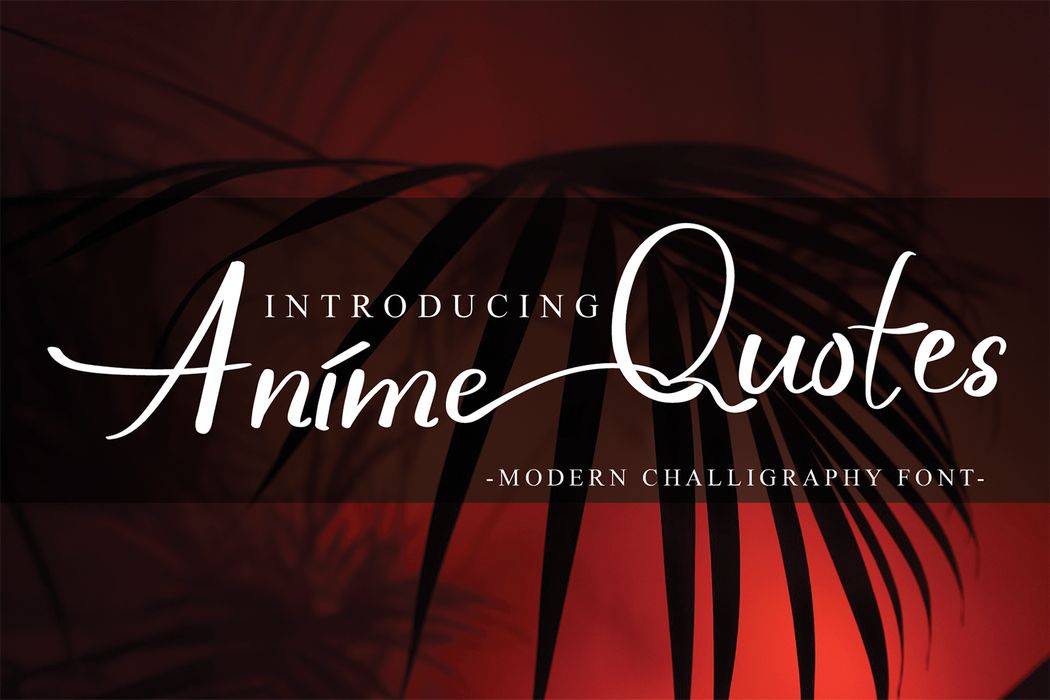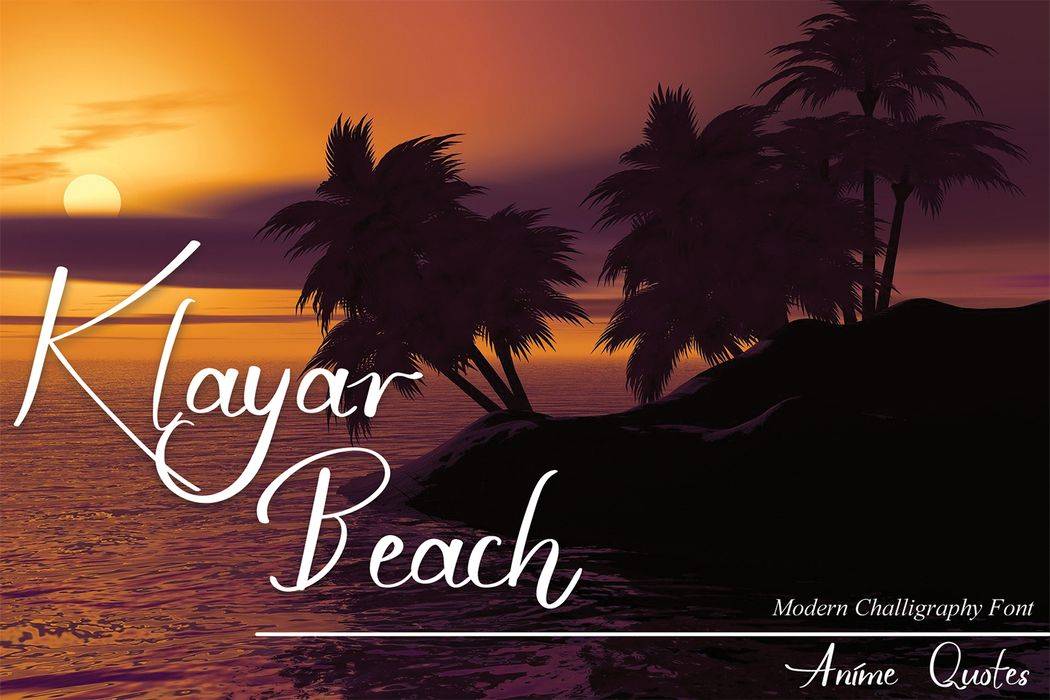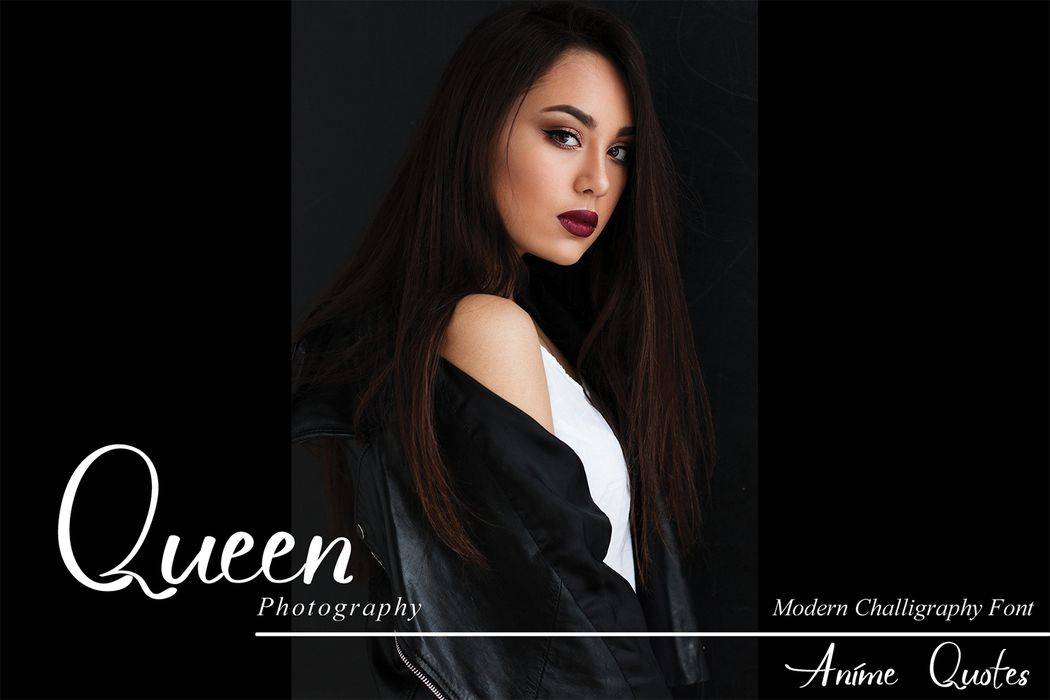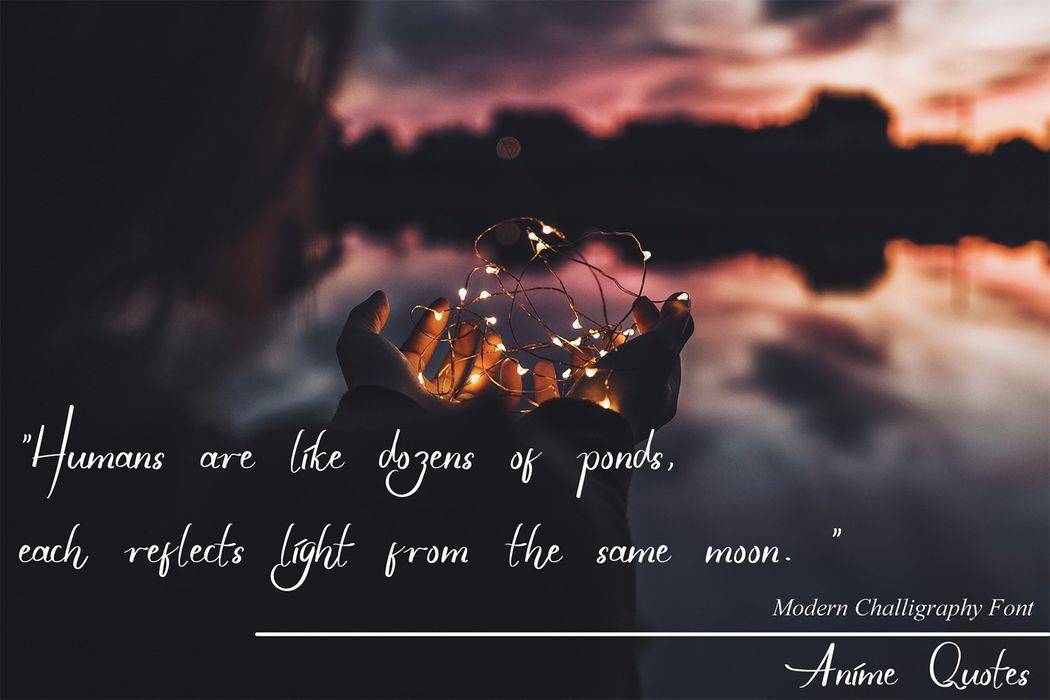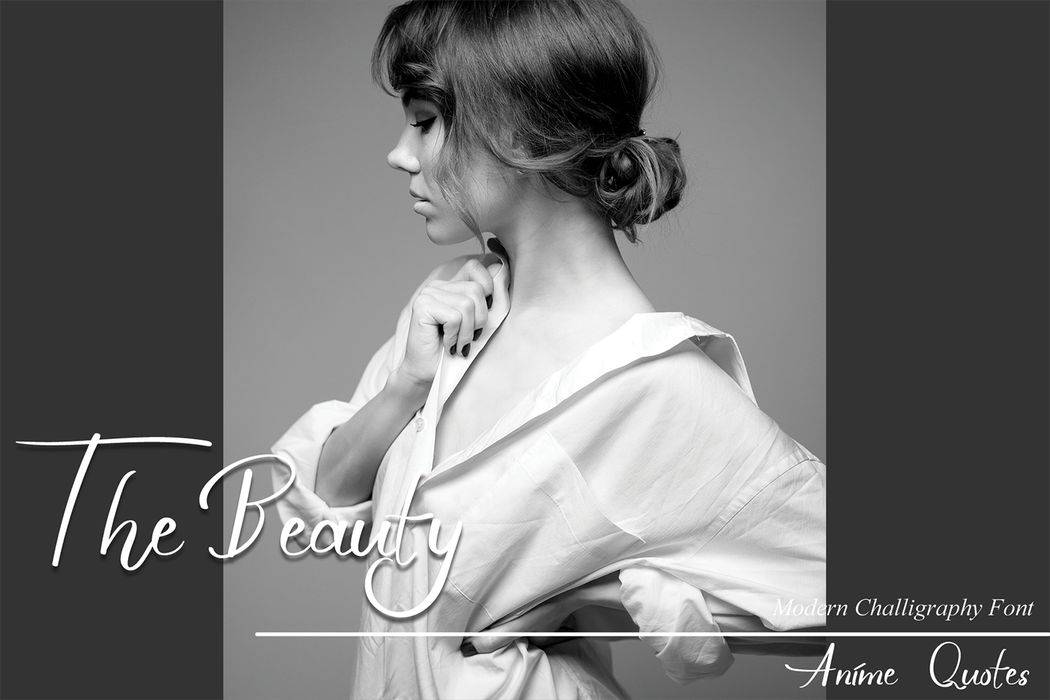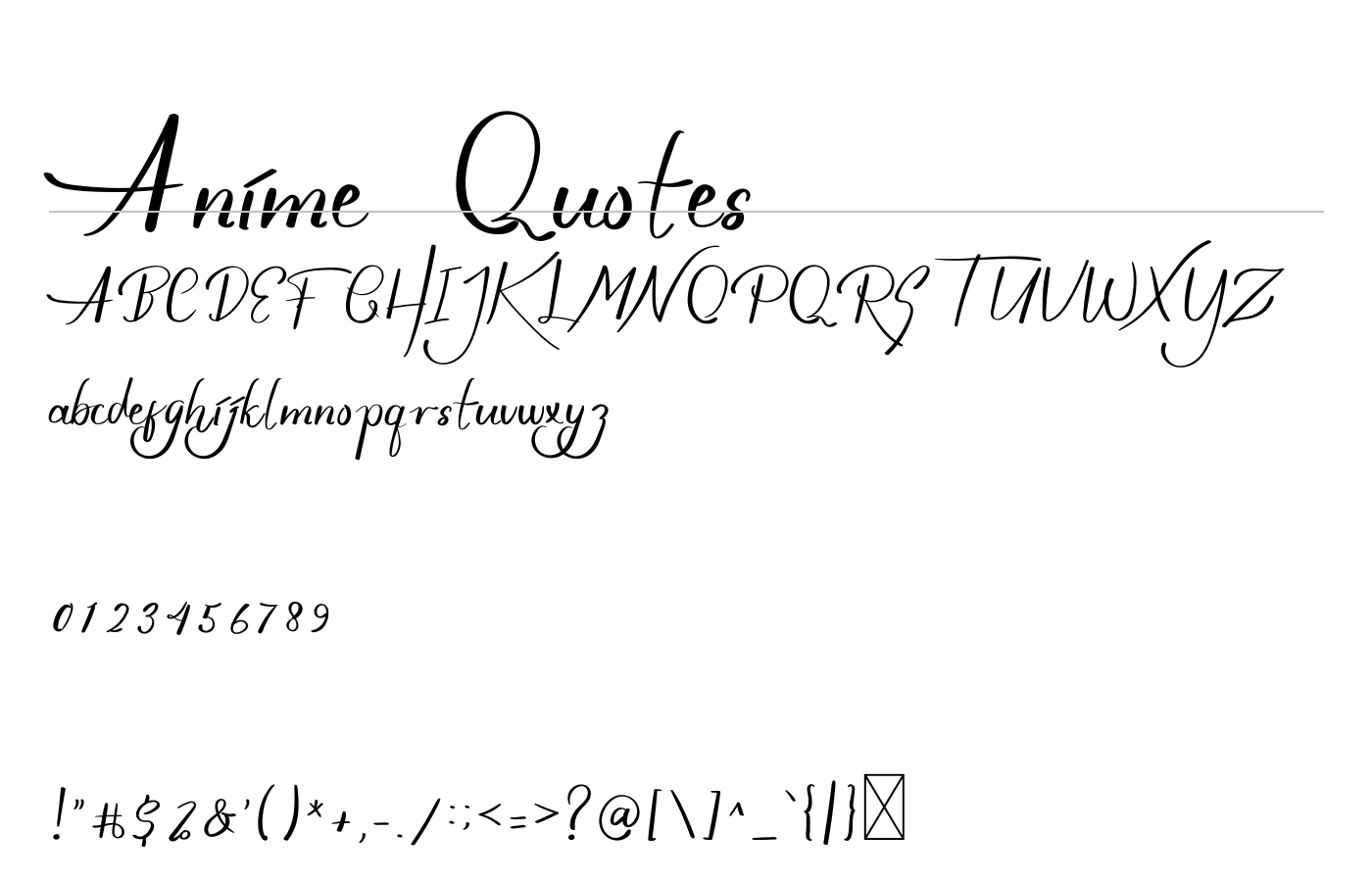
Anime Quotes Font is a slender, elegant script font with a modern handwritten style, featuring delicate strokes and graceful curves that give it a refined yet playful personality. Its light weight and flowing letterforms make it ideal for creative projects like logos, quotes, and branding where a touch of sophistication and artistic flair is desired. This font works best in headlines or decorative text, adding an airy, stylish look without overwhelming the design.
Anime Quotes Font
About Anime Quotes Font